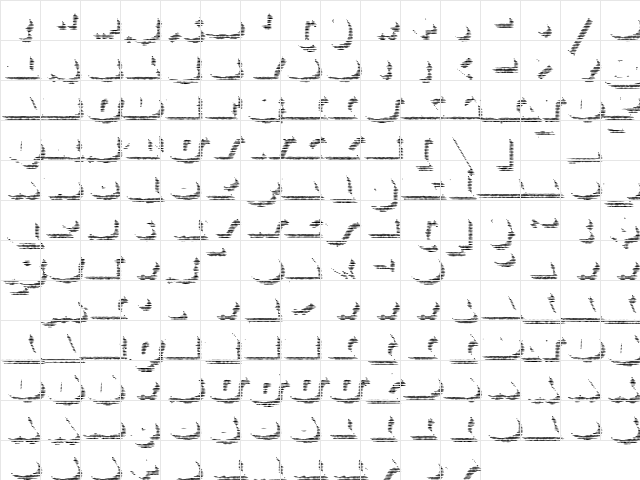
FederalTwelve Medium
Design Context for FederalTwelve Typeface
FederalTwelve is a composed and adaptable typeface that performs quietly and consistently across a wide range of design contexts.